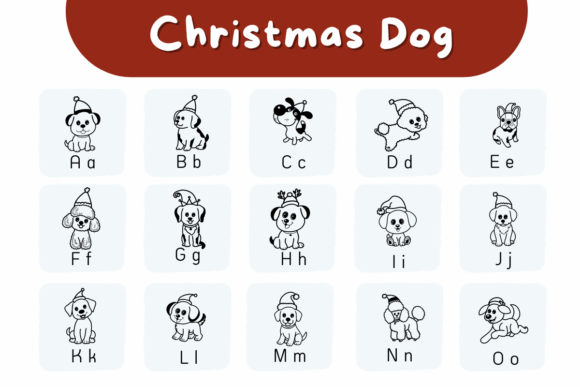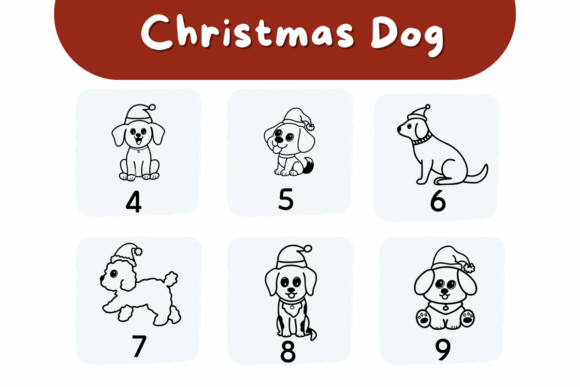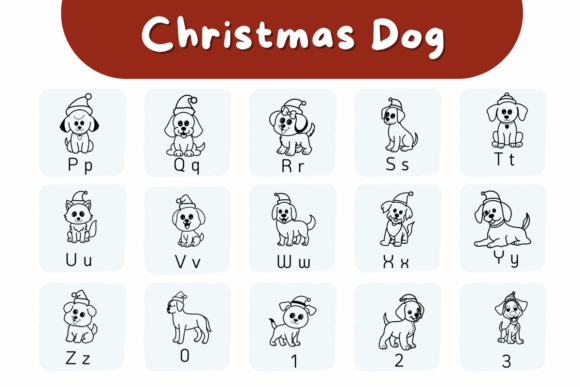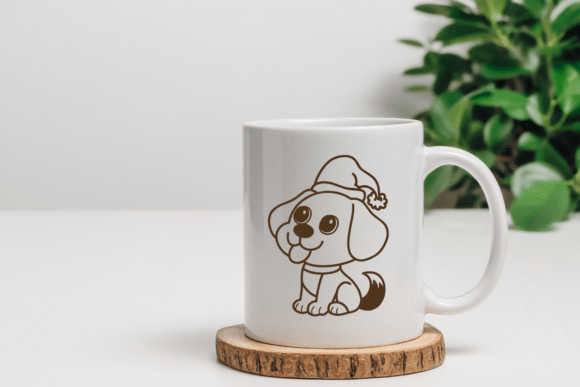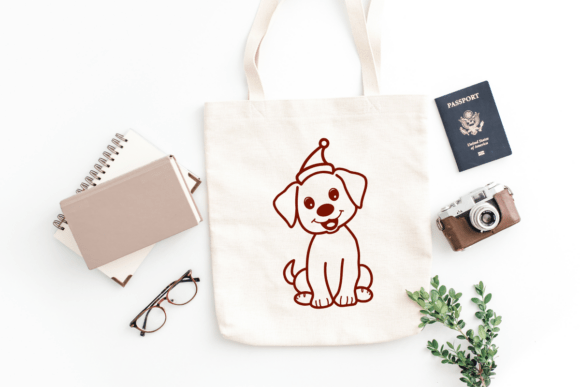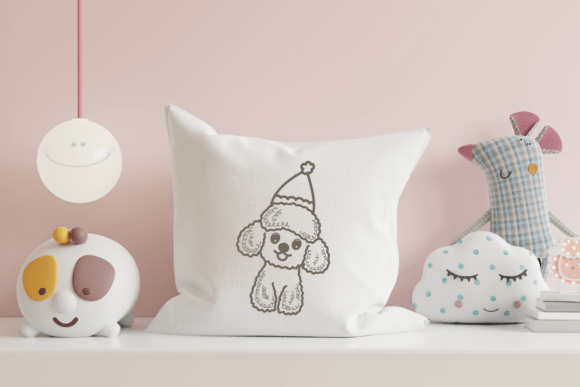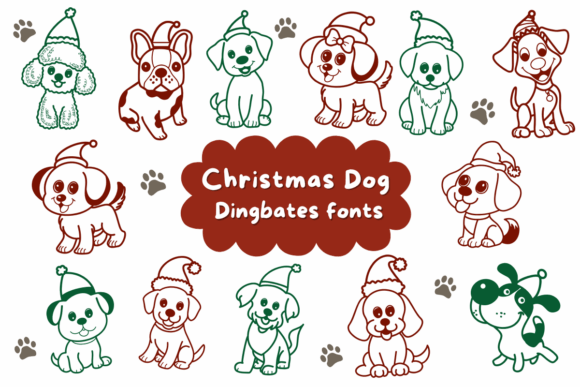
Christmas Dog Font: Spread Holiday Cheer with Adorable Canine Illustrations
Are you looking for a fun and festive font to add some holiday cheer to your designs? Look no further than the Christmas Dog Font! This heartwarming dingbat font is filled with adorable dog illustrations wearing Santa hats and festive accessories, perfect for Christmas cards, pet-themed products, kids’ crafts, or holiday decor.
What is Christmas Dog Font?
Christmas Dog Font is a unique dingbat font that features a collection of cute dog illustrations, each wearing a Santa hat or festive accessories. The font is designed to bring a smile to your face and add a touch of holiday cheer to any design. Whether you’re a dog lover or designing for one, this font makes it easy to add character and personality to your projects.
Christmas Dog Font is perfect for designers and crafters looking to add a personal touch to their holiday projects. The font is great for creating:
- Christmas cards and invitations
- Pet-themed products, such as dog tags, collars, and toys
- Kids’ crafts, such as holiday-themed coloring pages and decorations
- Holiday decor, such as printable banners and garlands
- Printable tags and planner stickers
- Holiday shirts and apparel
Easy to Use
Benefits of Using Christmas Dog Font
There are many benefits to using Christmas Dog Font in your designs:
- Adds a personal touch: The font’s adorable dog illustrations add a personal touch to any design, making it perfect for pet owners and dog lovers.
- Versatile: The font can be used for a variety of projects, from Christmas cards to holiday decor.
- Fun and festive: The font’s festive and fun illustrations add a touch of holiday cheer to any design.
Tips for Using Christmas Dog Font
Here are a few tips for using Christmas Dog Font in your designs:
- Mix and match characters: Experiment with different character combinations to create unique and personalized designs.
- Use with other fonts: Pair Christmas Dog Font with other fonts to create a unique and eye-catching design.
- Experiment with colors: Try out different color schemes to match your brand or design style.
Christmas Dog Font is a fun and festive dingbat font that’s perfect for adding holiday cheer to your designs. With its adorable dog illustrations and easy-to-use interface, it’s a great addition to any designer’s or crafter’s toolkit. Whether you’re creating Christmas cards, pet-themed products, or holiday decor, Christmas Dog Font is sure to bring a smile to your face and add a touch of personality to your projects.